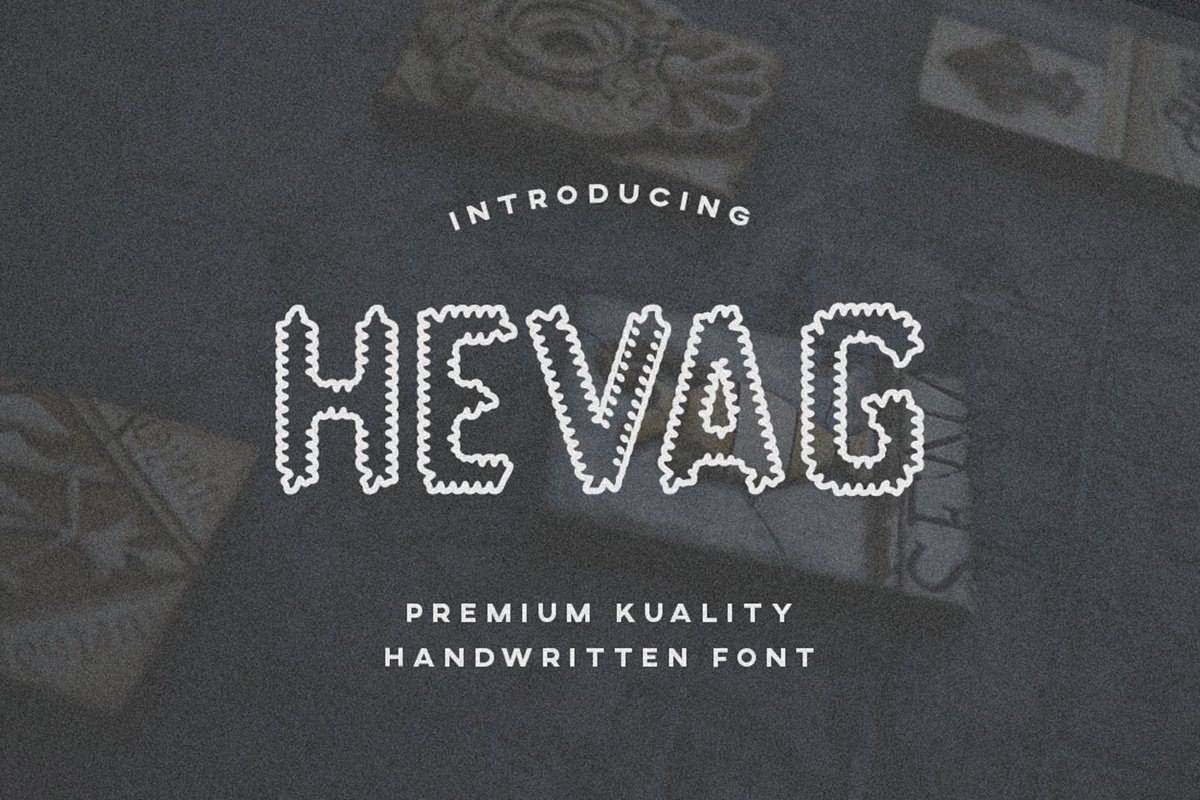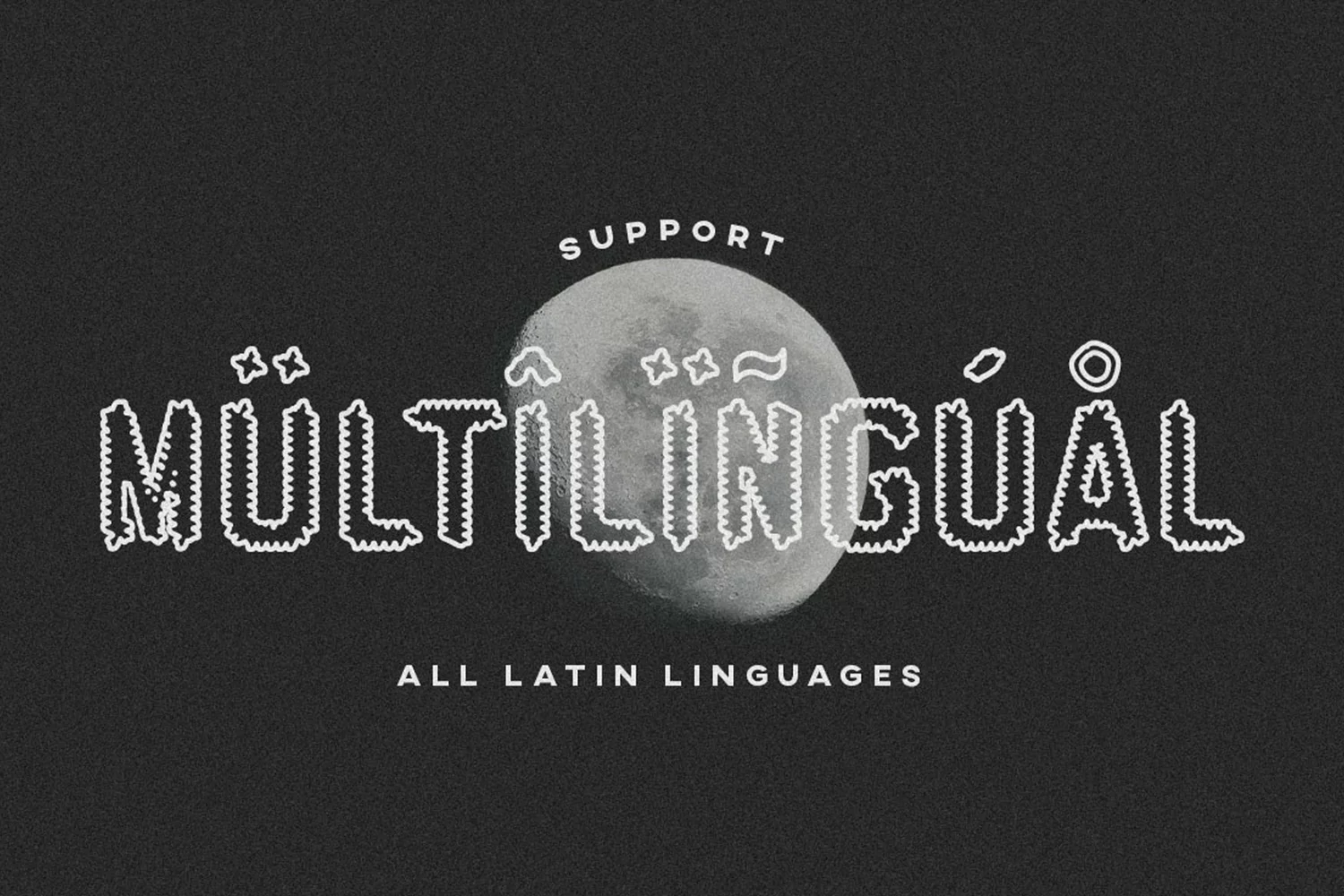
Hevag display come with playful themes. We wanted to create the most unique. It matches applies in some designs such as the logotype, brand, packaging, quotes, pet poster, kids shirt, cover book, birthday invitation and more custom design. The features uppercase, lowercase, numeral, punctuation & symbol, multilingual support.
HEVAG